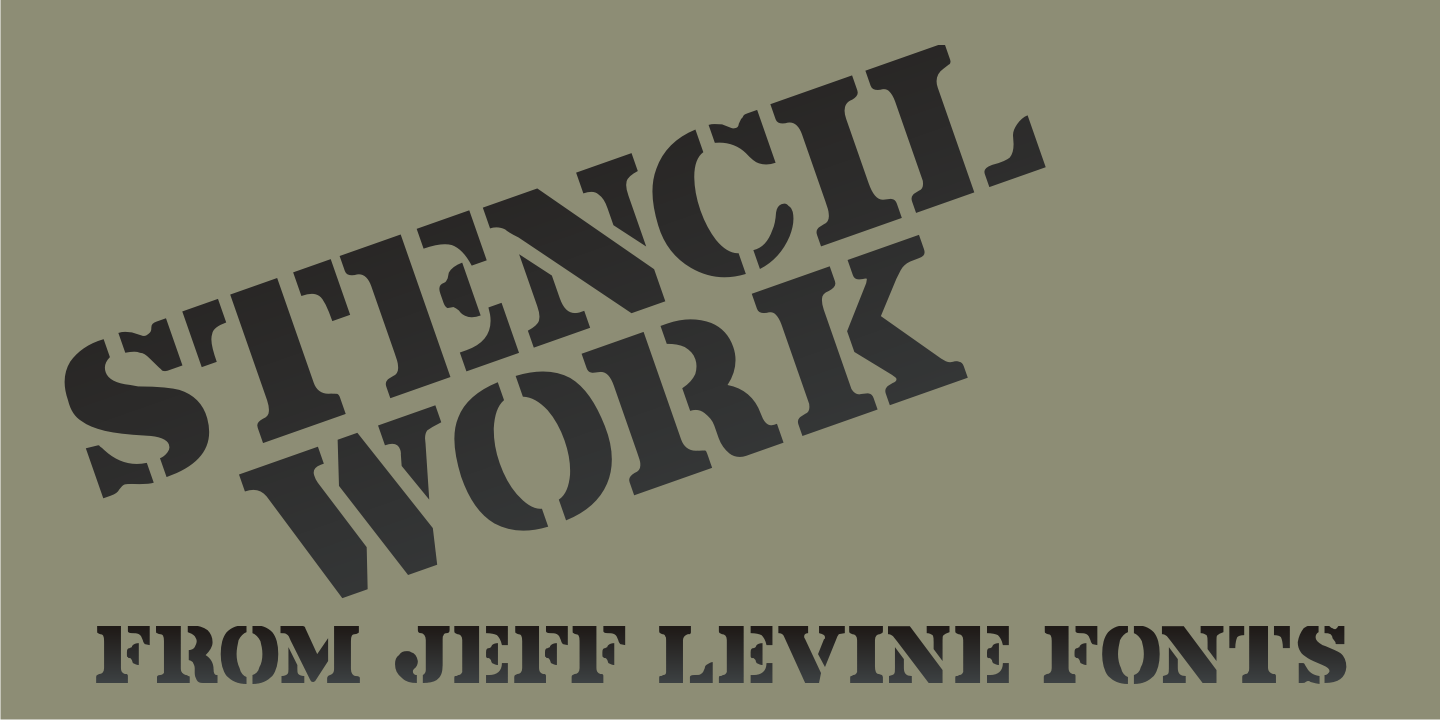
Stencil Work
Stencil Work JNL was re-drawn from a vintage paper stencil with one inch high Roman letters and numbers, often found in stationery, drug and variety stores in the 1950s through the 1980s..